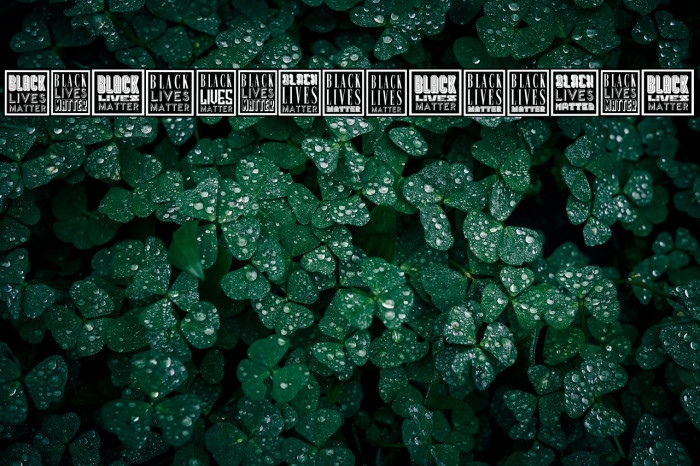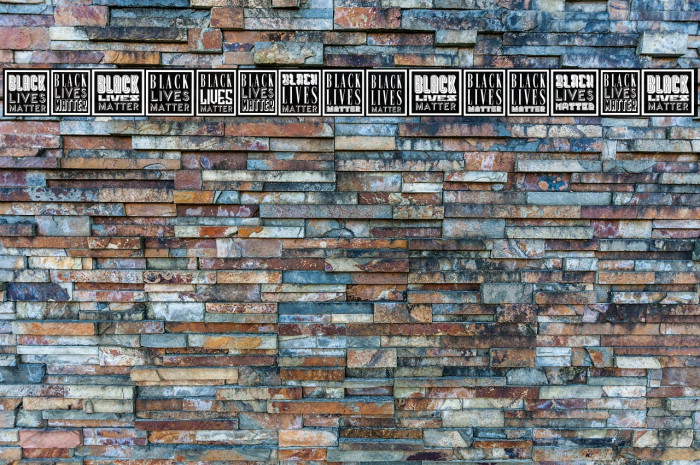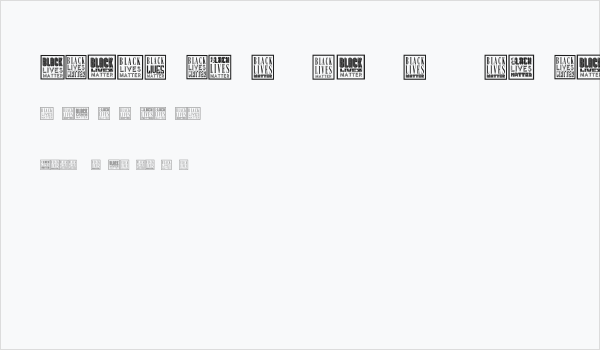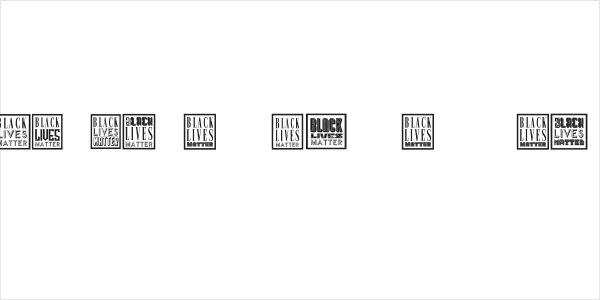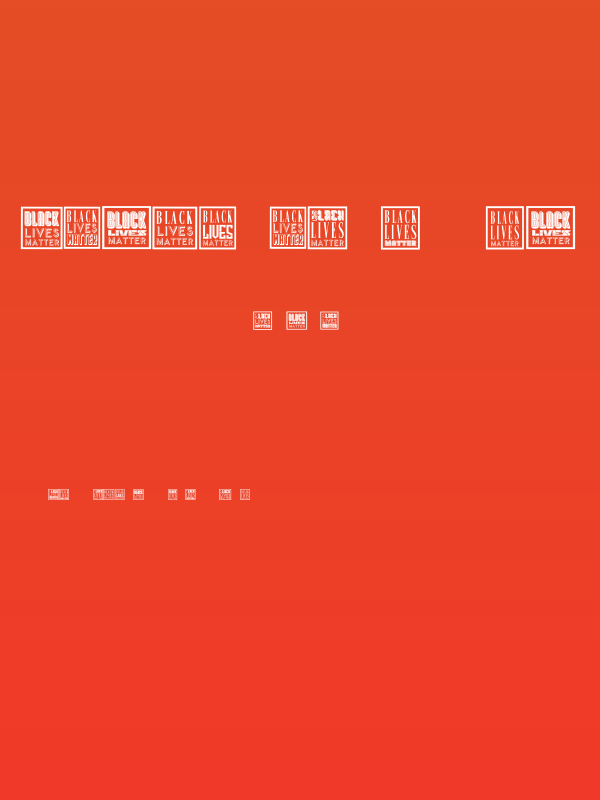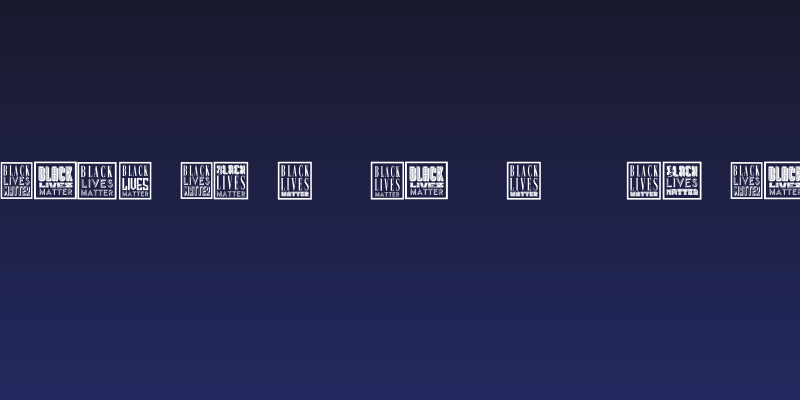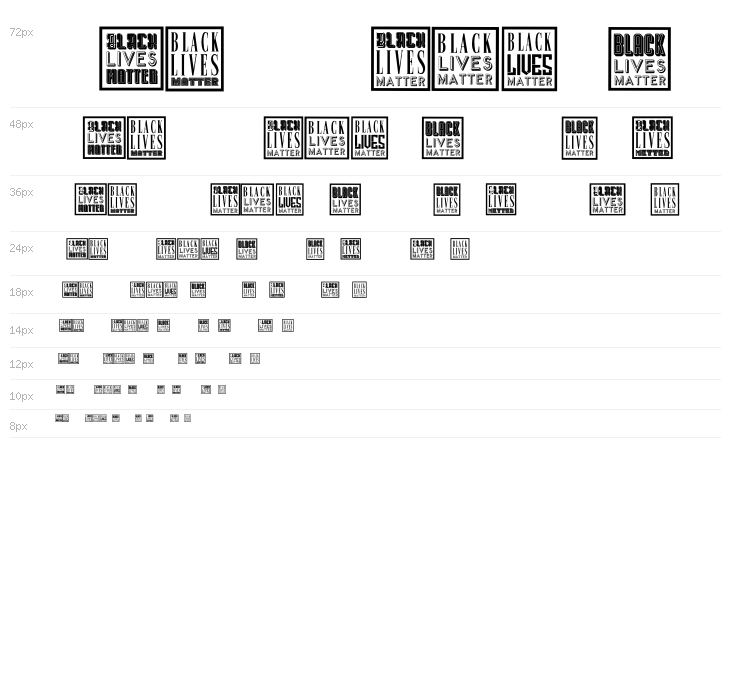
Black Lives Matter Regular Font
Black Lives Matter Regular Description
This font features a bold, impactful design with a strong presence. The letters are capitalized and enclosed in a square, creating a compact and uniform appearance. The strokes are thick and consistent, providing a sense of strength and solidarity. The font is designed to be highly legible, even at smaller sizes, making it suitable for conveying powerful messages. The overall aesthetic is modern and assertive, with a focus on clarity and directness. The use of black and white enhances the contrast, ensuring that the text stands out prominently against various backgrounds.